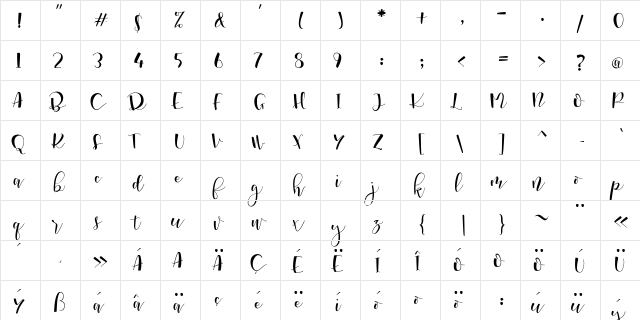
Marsha Belle Demo Regular
| Foundry | rudisasori (tegaki) |
| Designer | rudisasori |
Design Context for Marsha Belle Demo Typeface
Marsha Belle Demo is a composed and adaptable typeface that performs quietly and consistently across a wide range of design contexts.